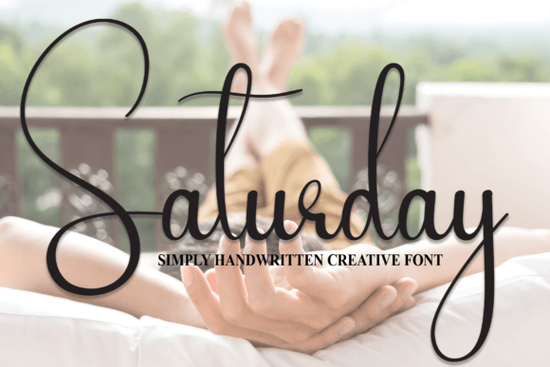
If you've been searching for a handwritten font that feels approachable without looking messy, Saturday Font is worth a serious look. It's a clean, friendly script that works across crafts, digital design, greeting cards, presentations, and even print-on-demand products. For anyone who needs a typeface that looks hand-lettered but stays easy to read, this one checks a lot of boxes.
Below, I'll walk through what makes Saturday Font a practical choice, where it shines best, and how it compares to similar fonts you might already be considering.
What Makes Saturday Font Different From Other Handwritten Fonts?
A lot of handwritten fonts try too hard to look "artistic" and end up being hard to read. Saturday Font takes the opposite approach. The letterforms are simple and consistent, which means your text stays legible even at smaller sizes. Each character connects smoothly, giving the writing a natural flow without feeling over-designed.
This matters more than people think. If you're selling products on Etsy or creating social media graphics, readability directly affects whether someone actually reads your message or scrolls past it.
Who Is This Font Best For?
Saturday Font is a solid pick for a wide range of creative projects. Here's where I've seen it used most effectively:
- Greeting cards and invitations The friendly tone fits birthdays, thank-you notes, and casual event invites perfectly.
- Print-on-demand products Mugs, tote bags, and t-shirts all benefit from a font that's warm but not childish.
- Digital planners and journals It adds a personal touch without sacrificing clarity.
- Social media graphics Quotes, announcements, and captions look polished but approachable.
- Presentation slides Great for headers and accent text when you want something less corporate than a sans-serif.
- SVG cut files for crafters Works well with Cricut and Silhouette projects where clean lines matter.
How Does Saturday Font Compare to Similar Options?
If you're browsing Creative Fabrica's handwritten font collection, you'll notice several options in this style. Here's how Saturday stacks up against a few popular alternatives:
Rainbow Font leans more playful and colorful in personality, making it better suited for kids' projects or party invitations. It has a bouncy baseline that adds energy but can feel too casual for professional use.
Casual Handwriting Font is another close match. As the name suggests, it mimics everyday handwriting very closely. It's less polished than Saturday, which can be an advantage if you want something that feels genuinely hand-drawn rather than "designed."
Winky Swing Font has more movement and flair in its strokes. It's fun for logos and branding but might distract from longer text blocks where Saturday Font keeps things calm and readable.
Quincy Font is elegant and slightly more formal, making it a better fit for wedding invitations or upscale branding. Saturday, on the other hand, stays grounded and everyday-friendly.
In short, Saturday Font sits right in the middle ground polished enough for professional projects, relaxed enough for personal ones.
Tips for Getting the Most Out of Saturday Font
Here are a few practical suggestions based on common use cases:
- Pair it with a clean sans-serif for body text. Saturday works best as a headline or accent font, not for paragraphs of small text.
- Use adequate line spacing. Handwritten fonts generally need more breathing room than standard typefaces.
- Test at multiple sizes before finalizing a design. What looks great on screen might need adjustment for print.
- Avoid all-caps usage. This font is designed for mixed case and loses its character when forced into uppercase.
- Preview on mockups before committing, especially for print-on-demand where the font becomes part of a physical product.